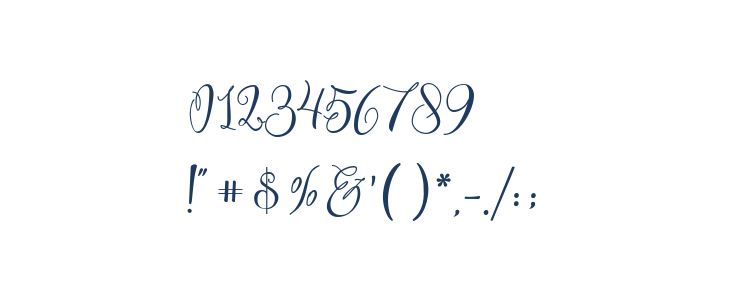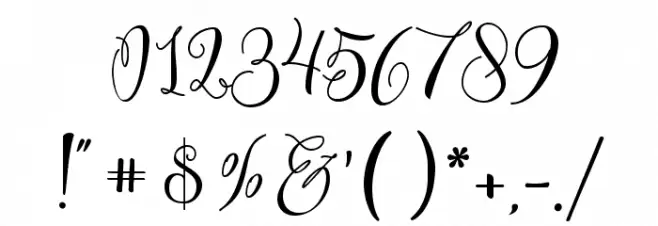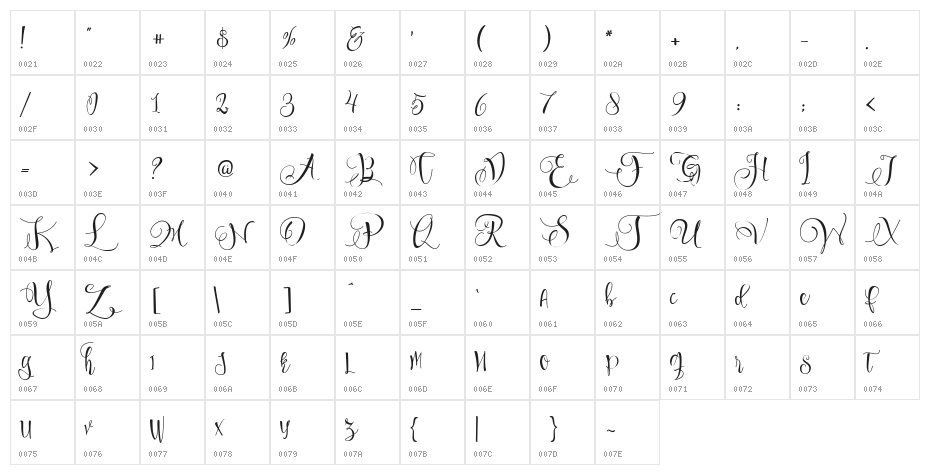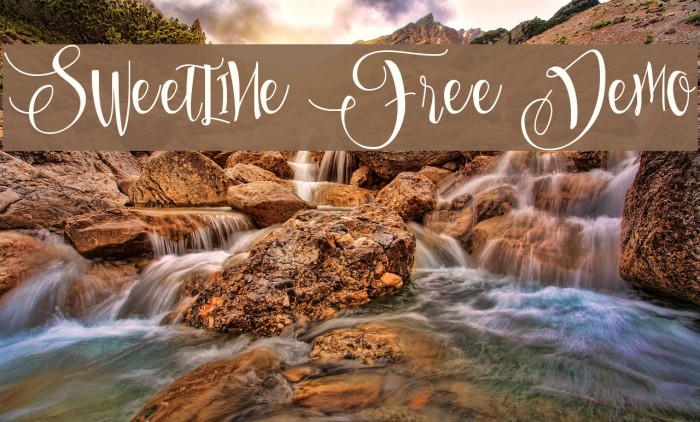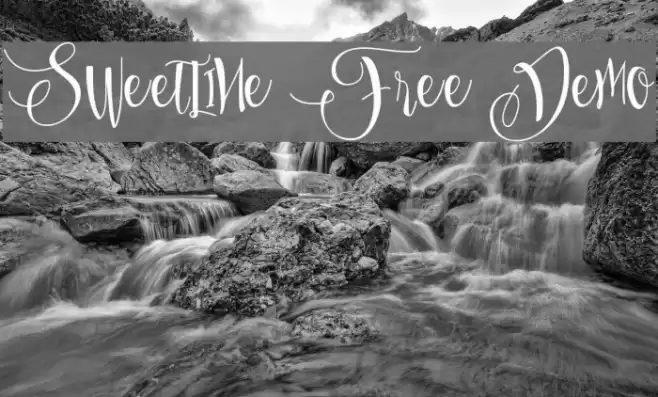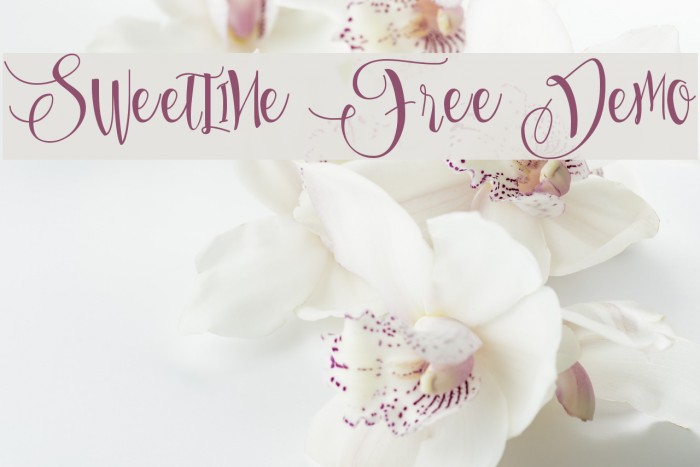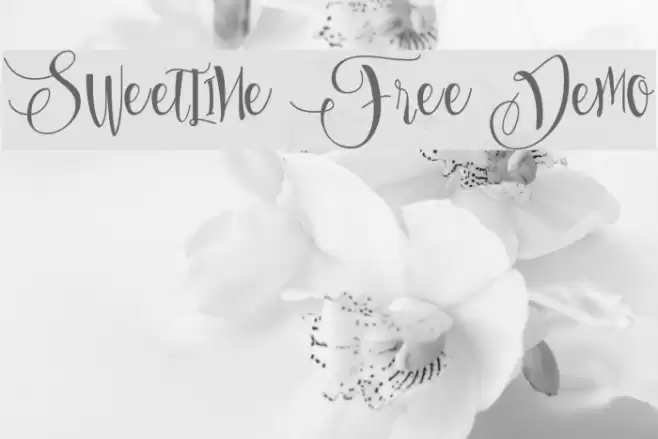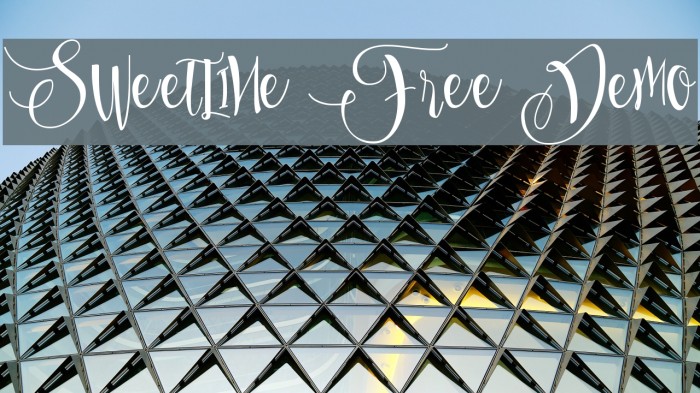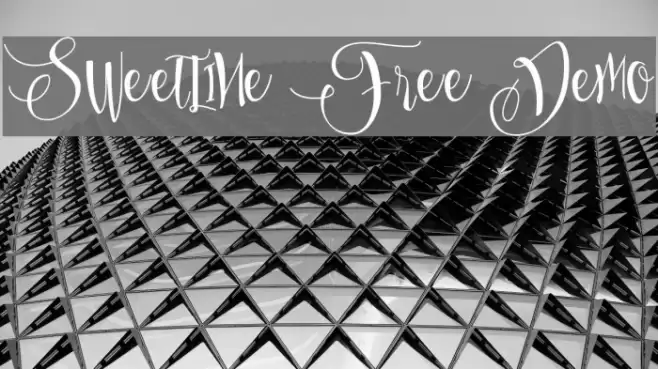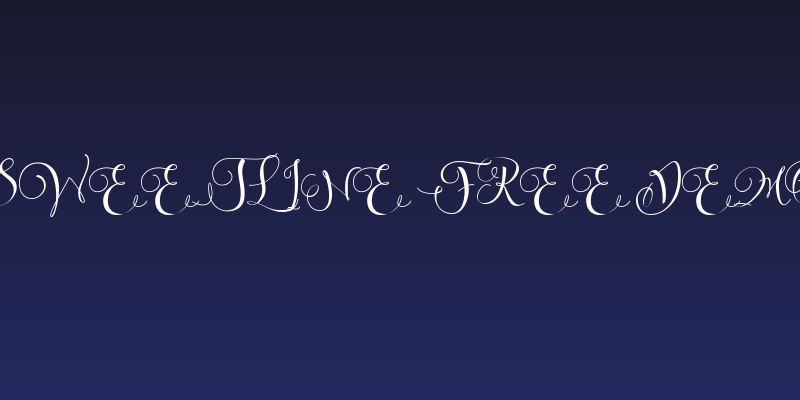
Sweetline Free Demo Font
Sweetline Free Demo Description
This font features an elegant and artistic script style, characterized by its flowing and intricate letterforms. The uppercase letters are adorned with elaborate swirls and loops, giving a sense of sophistication and flair. The lowercase letters maintain a consistent style, with smooth curves and a slightly whimsical touch. The numerals are distinct and maintain the decorative theme, while the special characters complement the overall design with their ornate appearance. This font is ideal for projects that require a touch of elegance and creativity.
| Proposed Projects | Ideal for wedding invitations, greeting cards, branding, and decorative projects. |